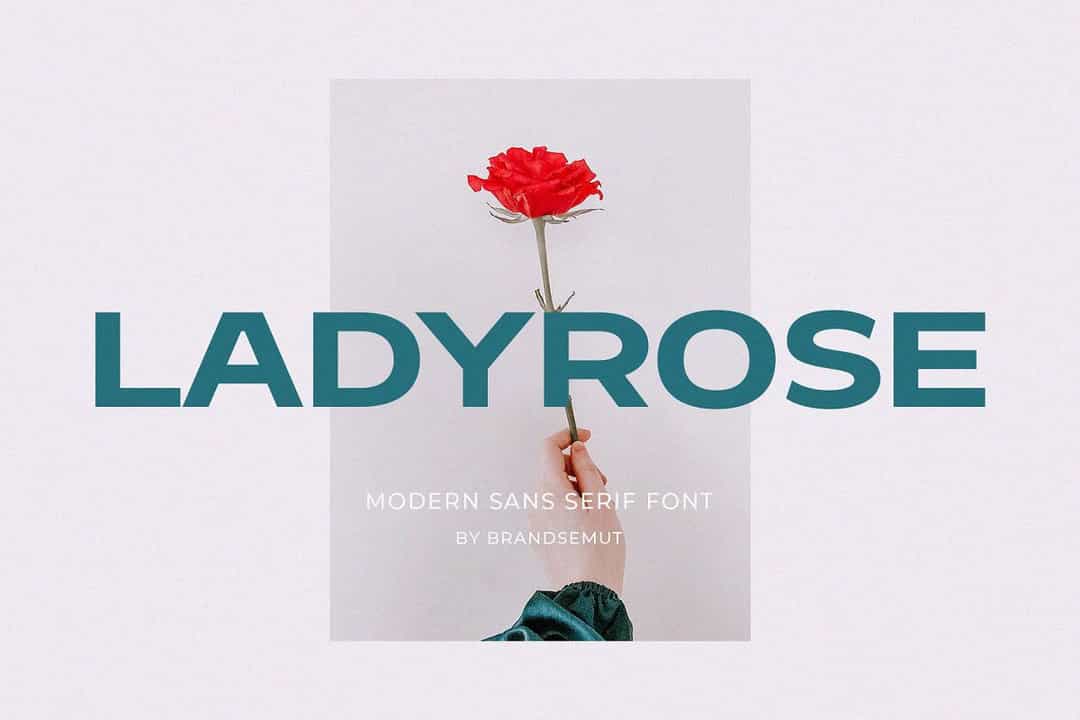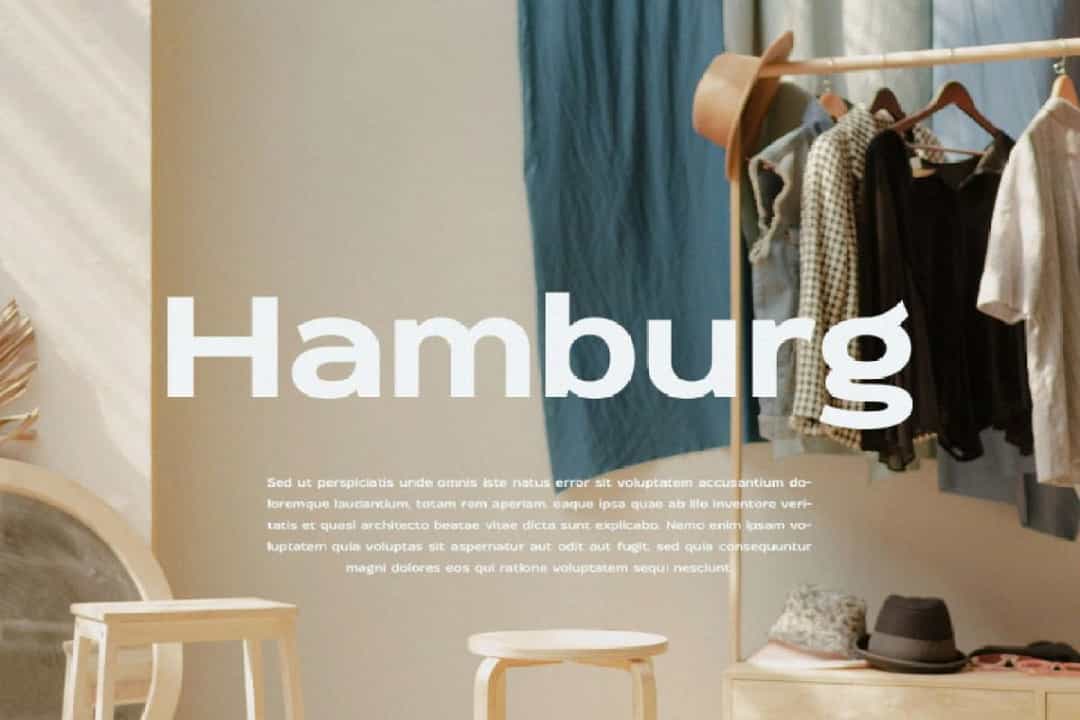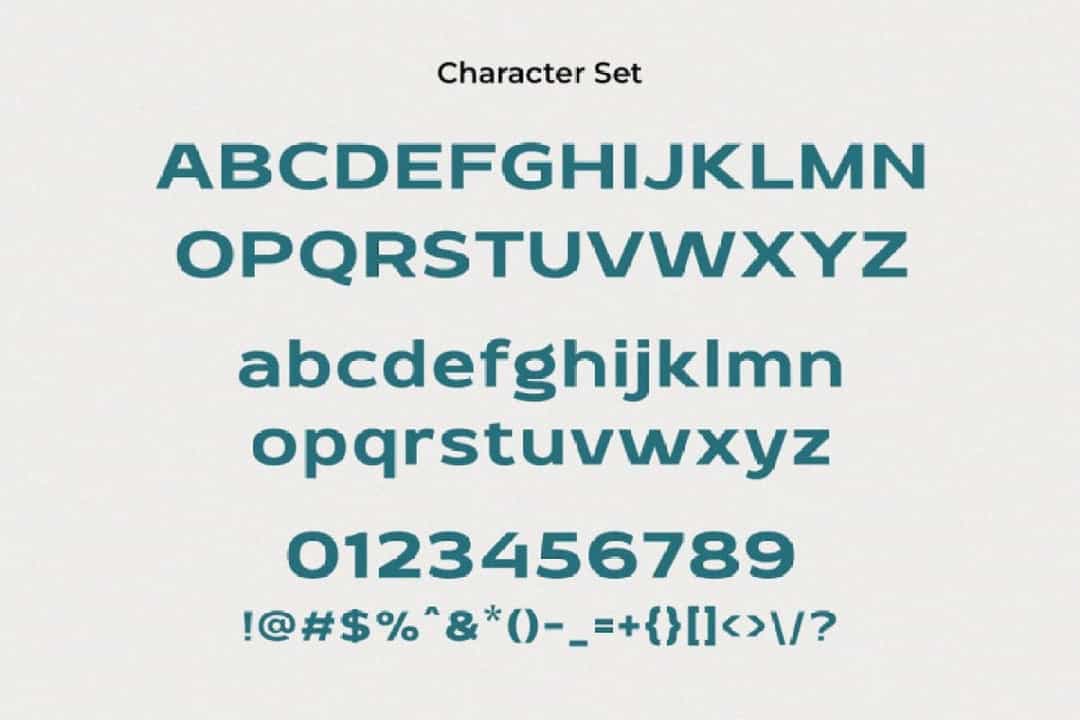
Ladyrose can be described as an easy and modern sans serif font ideal for logos, headings, magazines, branding packaging and invitations. With clean lines and curvier curves that ooze elegance it provides projects an extra dimension of class and elegance.